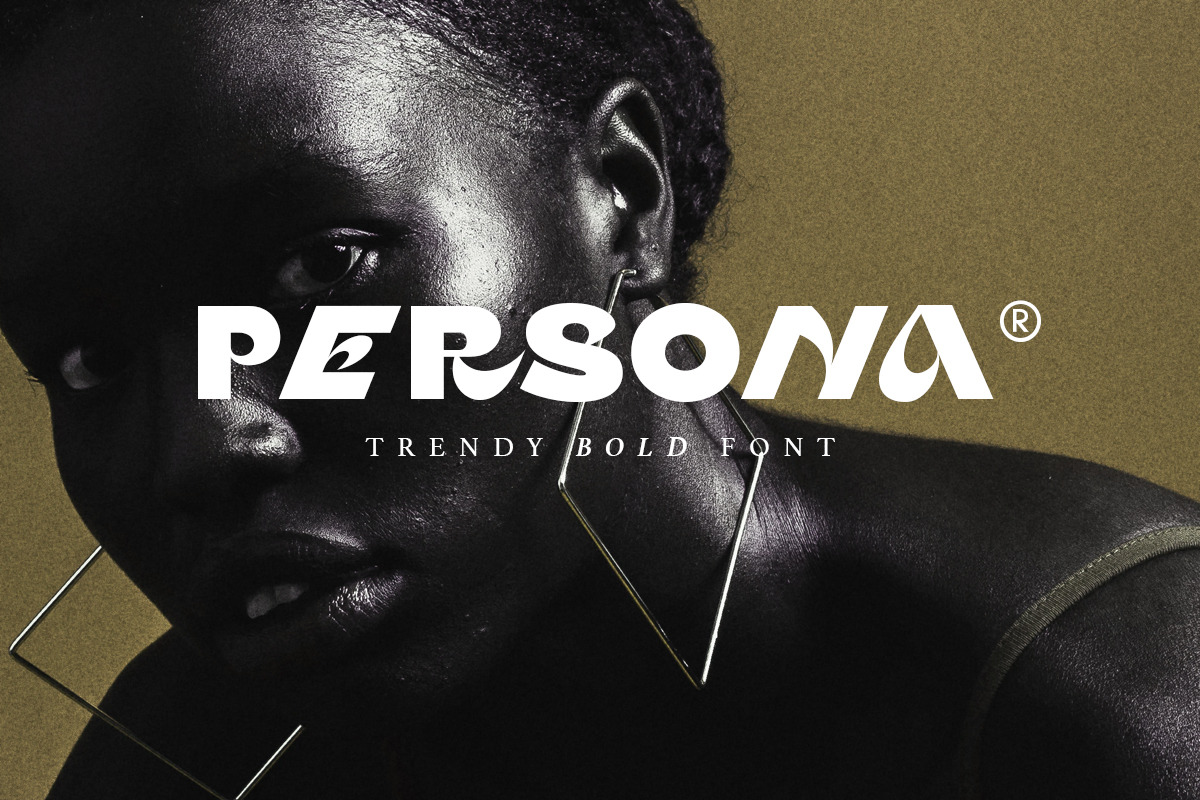
Persona - Trendy Bold Font
Introducing, Persona, a trendy bold font with italic alternates!
Persona is a modern and trendy font based sans that have unique looks. This font contains uppercase and lowercase that have different form. You can use the lowercase and uppercase in the same word that will make your text more stand out! And the best of this font is the italic version as the alternates which mean you can combine it all without worrying about the kerning! You can use this font for the magazine, poster, and suitable for headline. This font also support multi language.
- All Caps Font with different uppercase and lowercase
- Italic version as the alternates.
- Well Kerned.